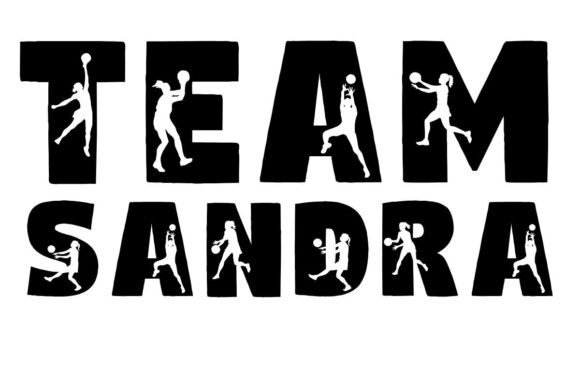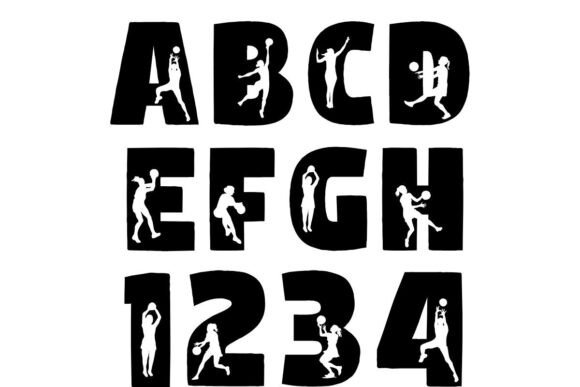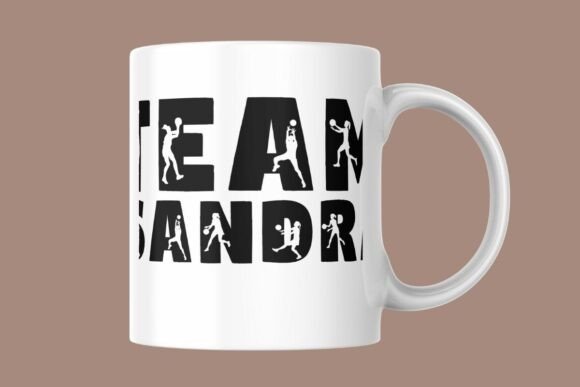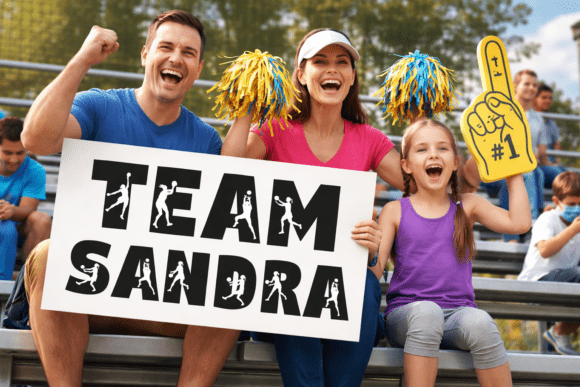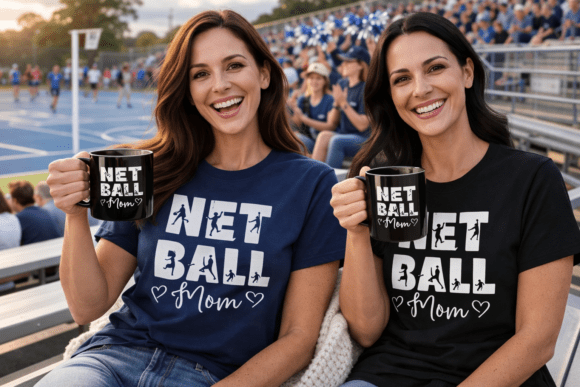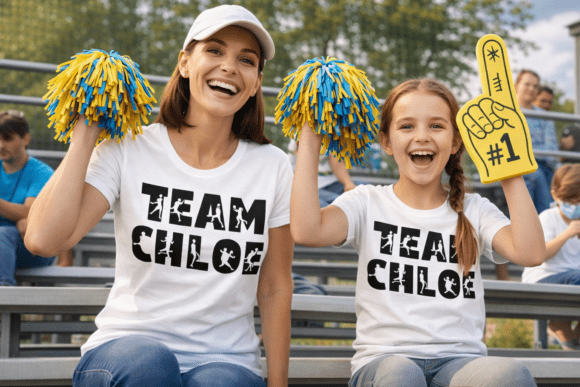
Introduction to Netball Font
Netball is a strong, eye-catching sports font featuring uppercase letters and numbers in both OTF and TTF formats.
Inspired by the fast-paced energy of the game, this font is perfect for athletes, schools, and designers who want to create impactful sports-themed graphics Whether youโ€™re designing for jerseys, banners, digital projects, or crafting with Cricut or Silhouette, Netball brings a bold and modern edge to your work.